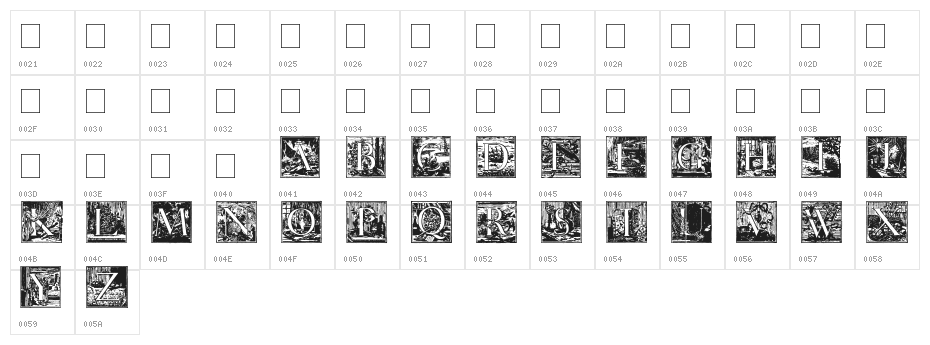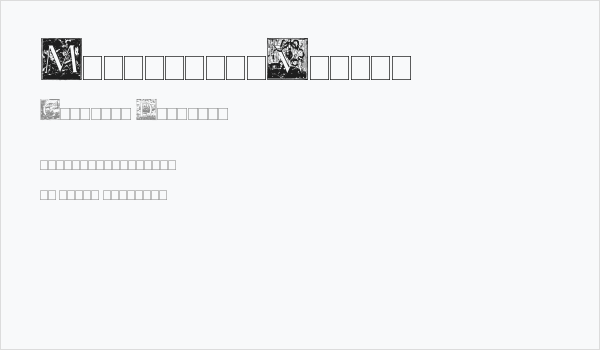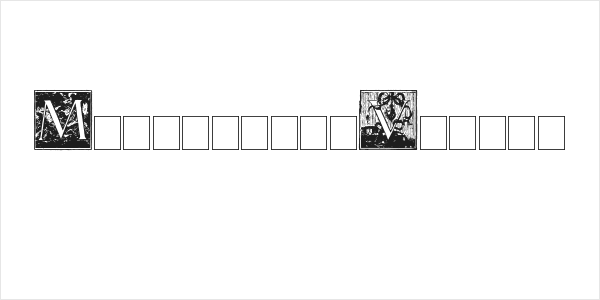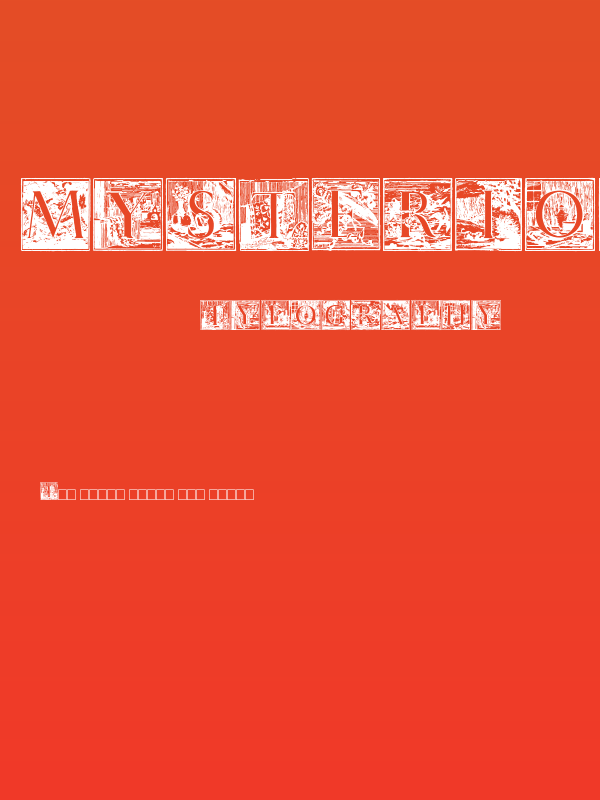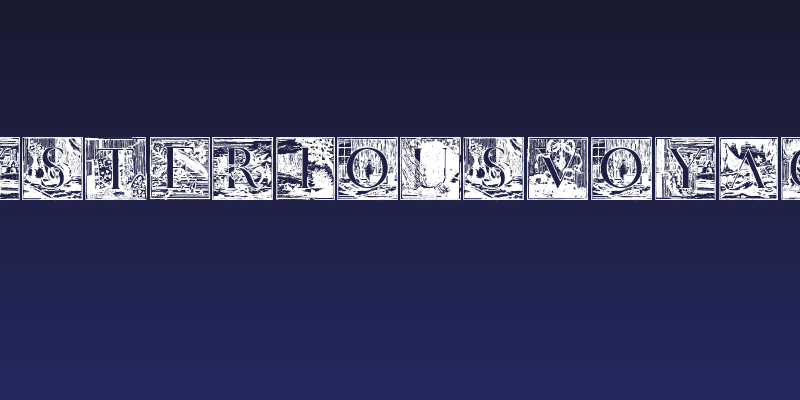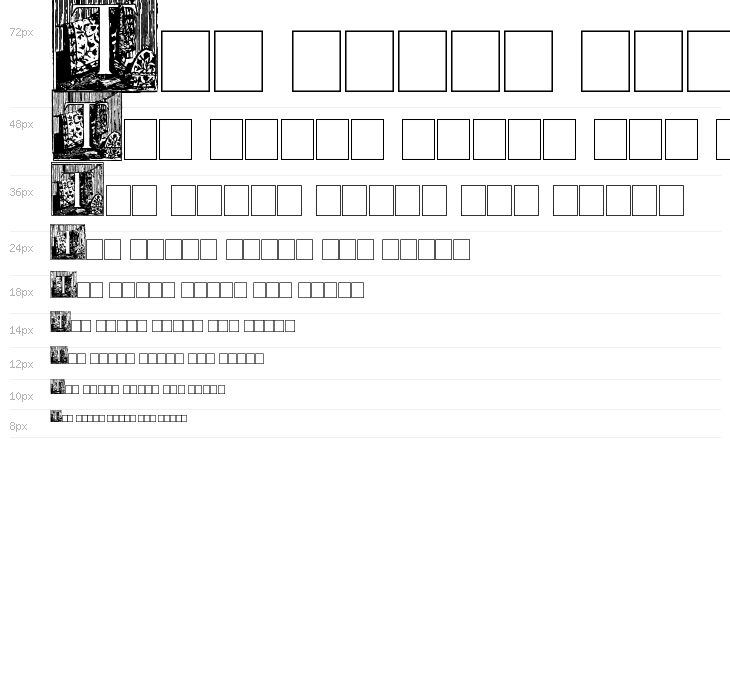
MysteriousVoyage Font
MysteriousVoyage Description
This font features an intricate and artistic design with each letter embedded within a detailed illustration. The uppercase letters are presented in a decorative style, reminiscent of vintage woodcut prints or illuminated manuscripts. Each character is framed within a square, adding a sense of uniformity despite the elaborate internal designs. The font is highly ornamental, making it suitable for projects that require a touch of historical or artistic flair. The absence of lowercase letters and numerals suggests a focus on decorative use rather than practical text applications.
| Proposed Projects | Ideal for artistic projects, book covers, posters, or any design needing a historical or decorative touch. |